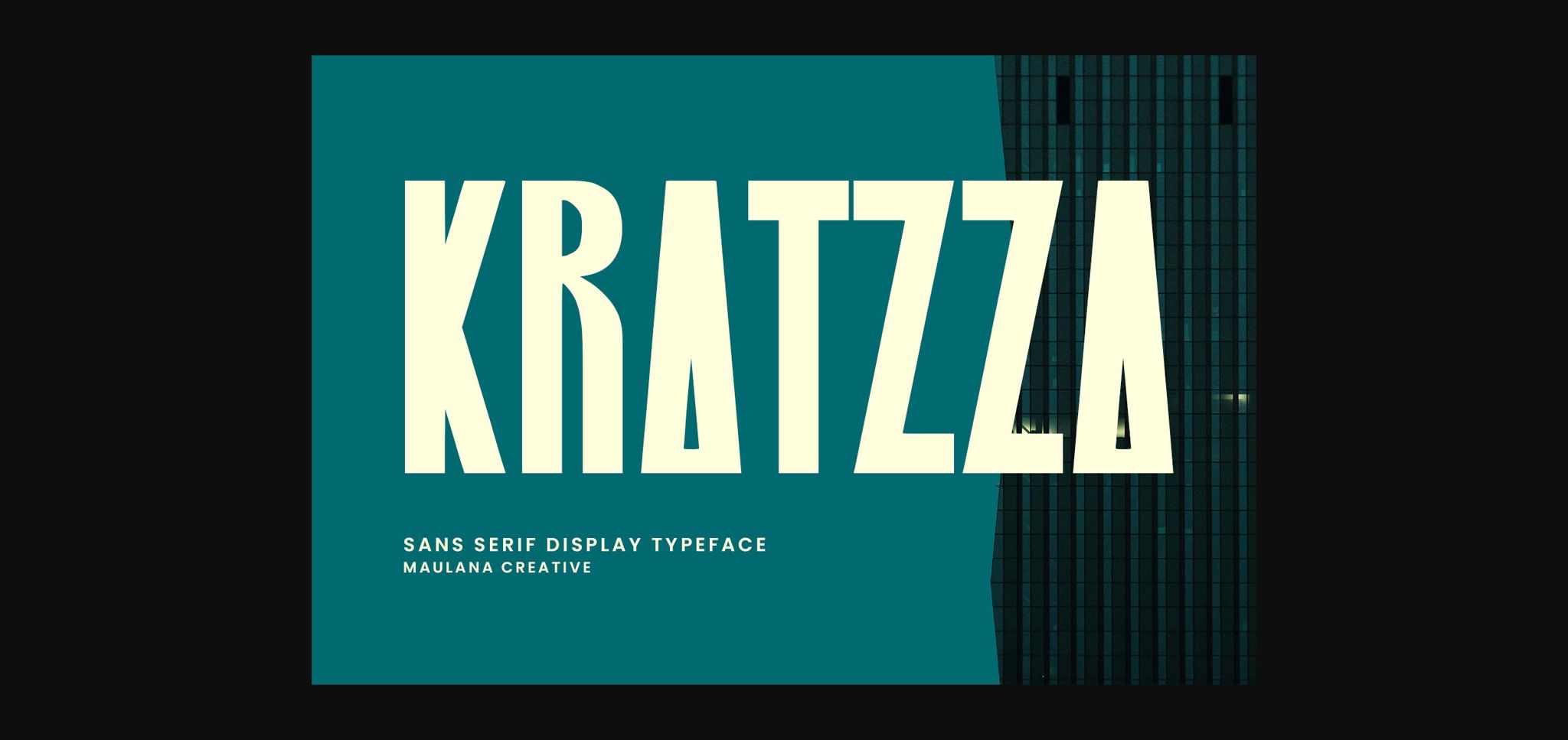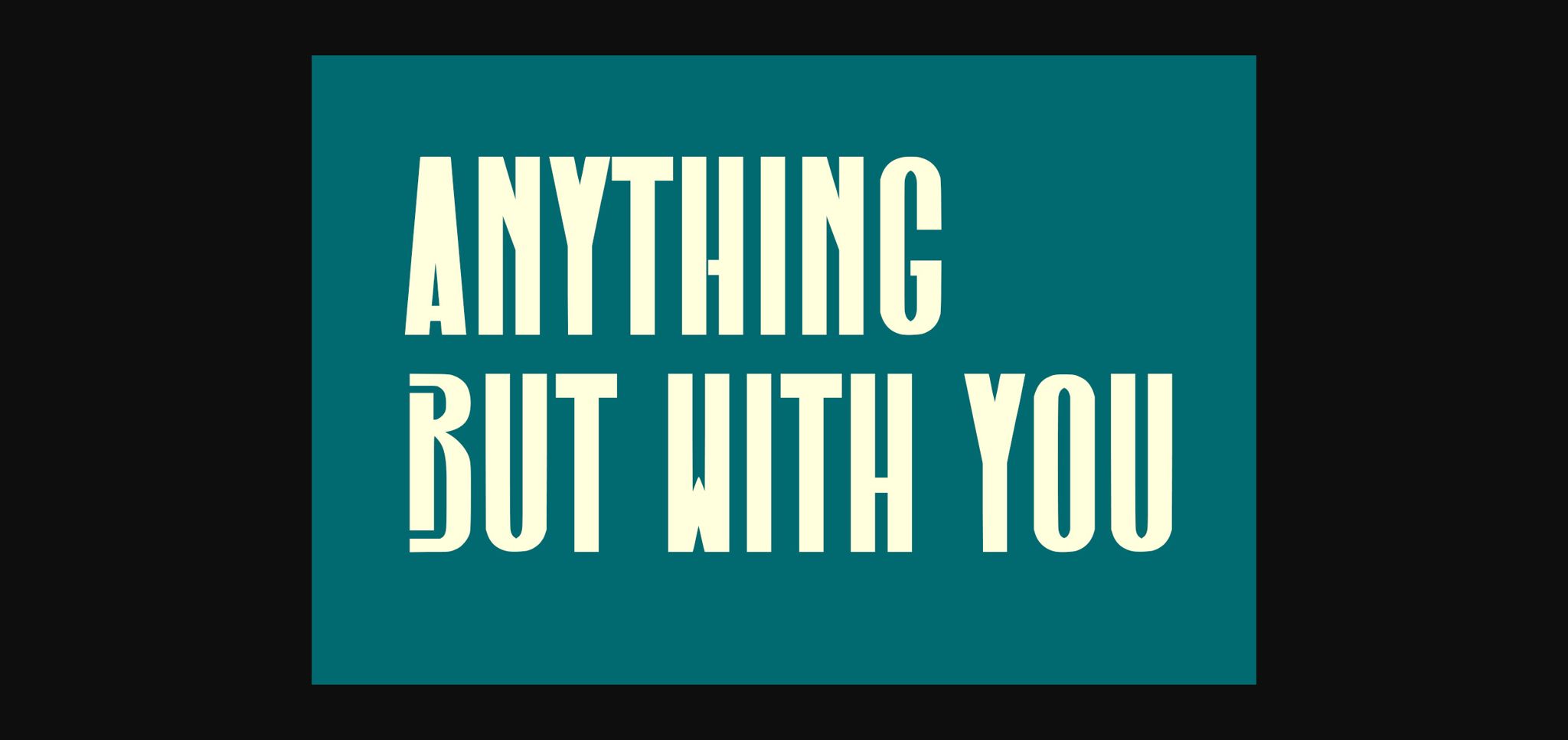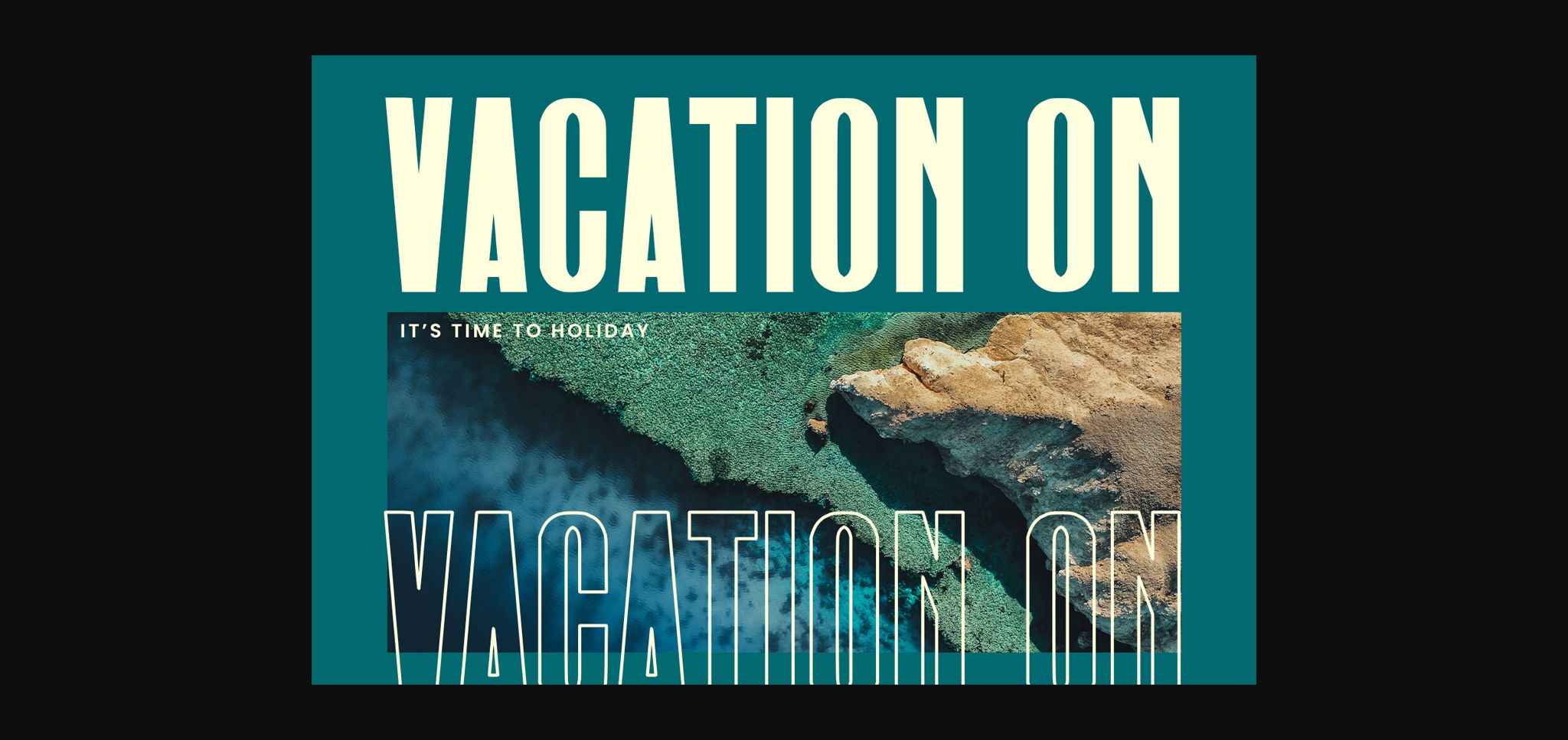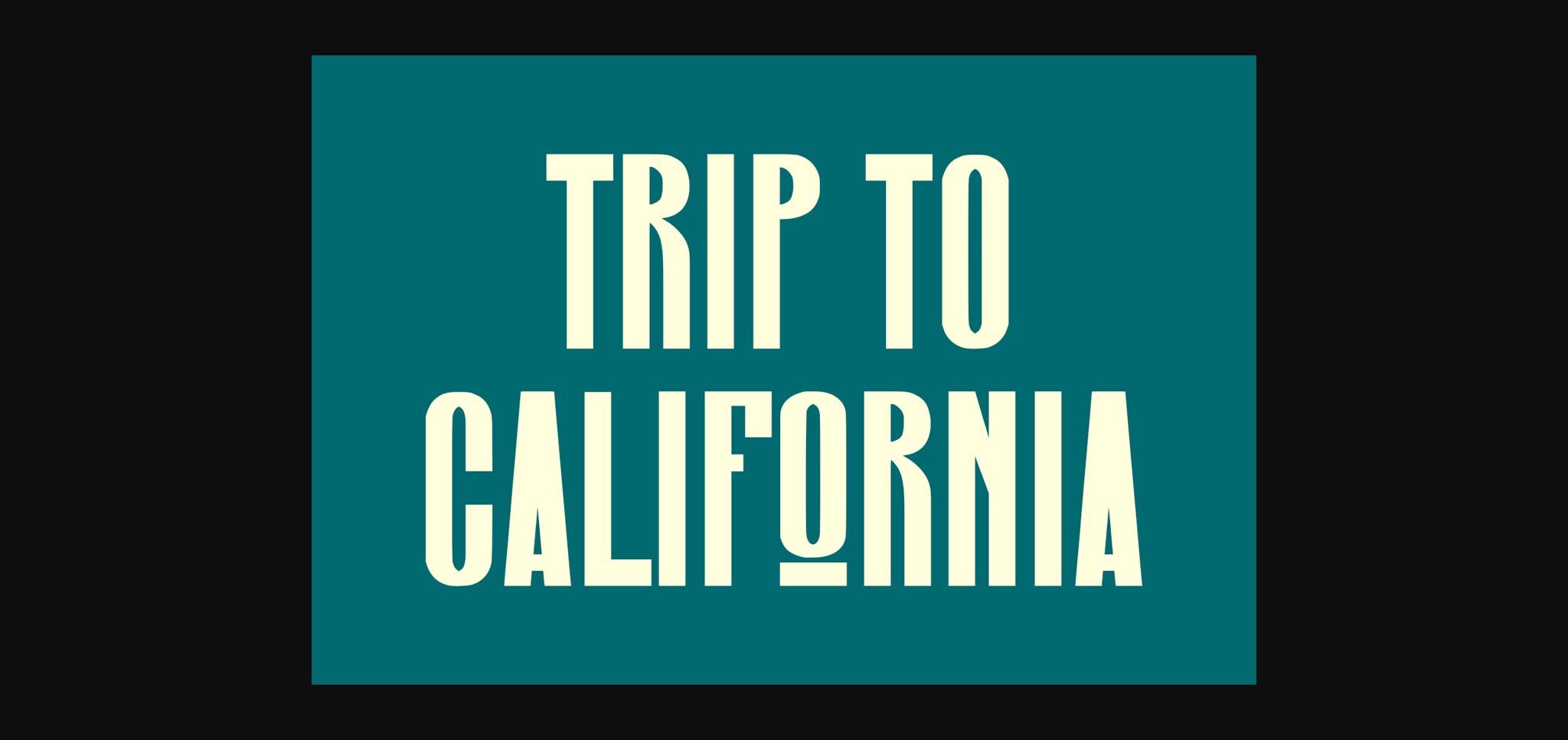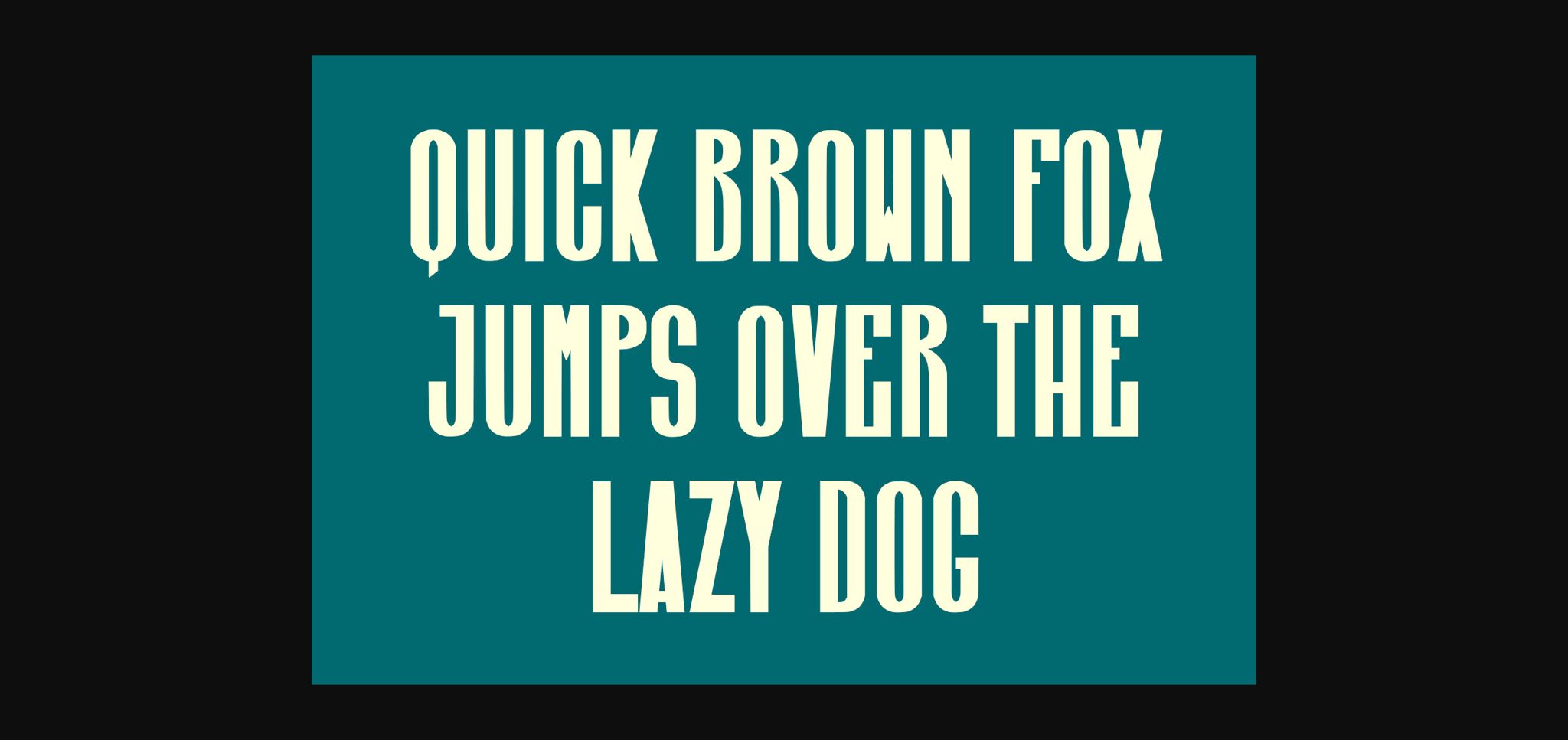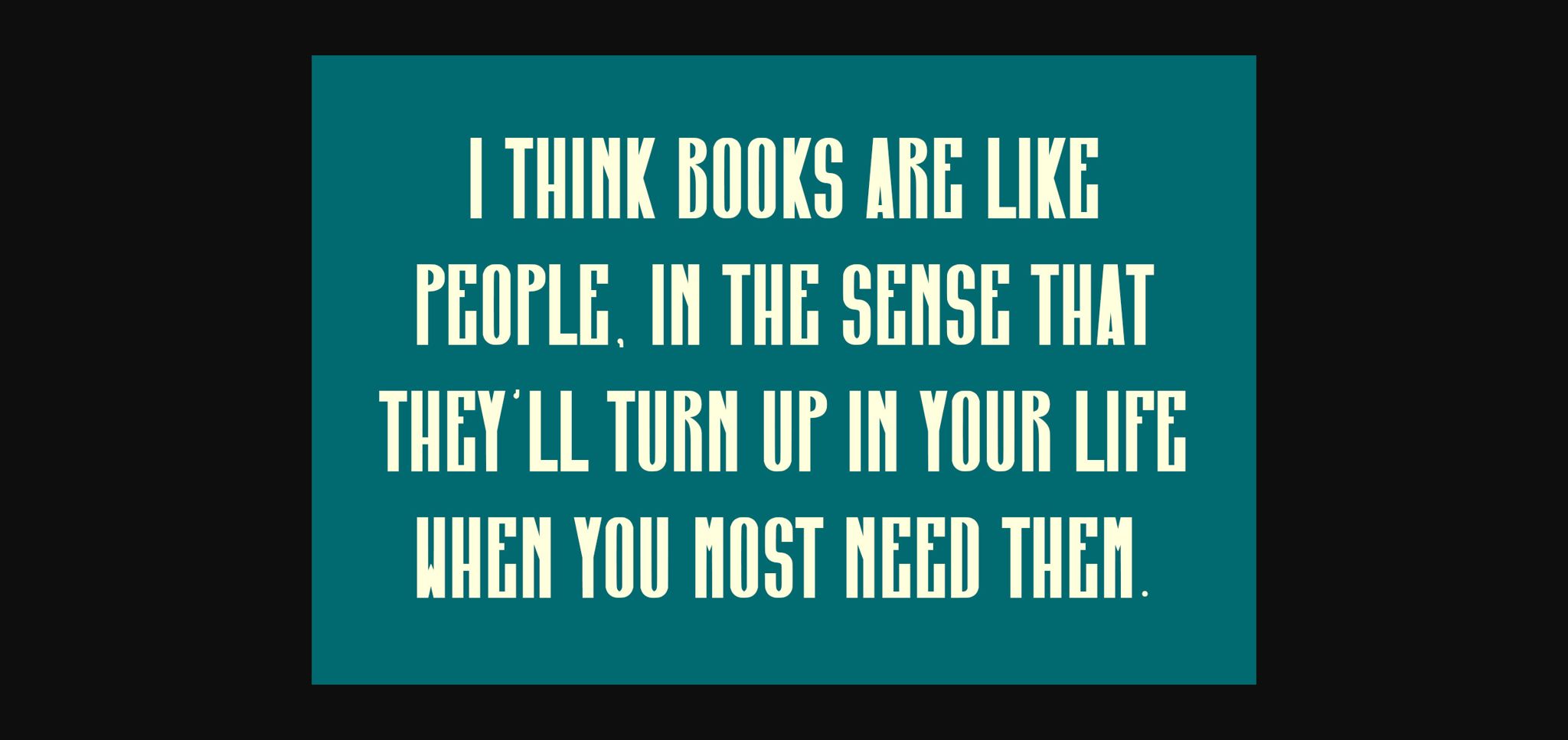
About Kratzza Font
Kratzza is a striking and bold sans-serif display typeface that commands attention. With its clean lines and strong geometric shapes, it exudes confidence and modernity. Perfect for headlines, posters, and branding projects, Kratzza adds a contemporary flair to any design with its bold presence and sleek aesthetics.